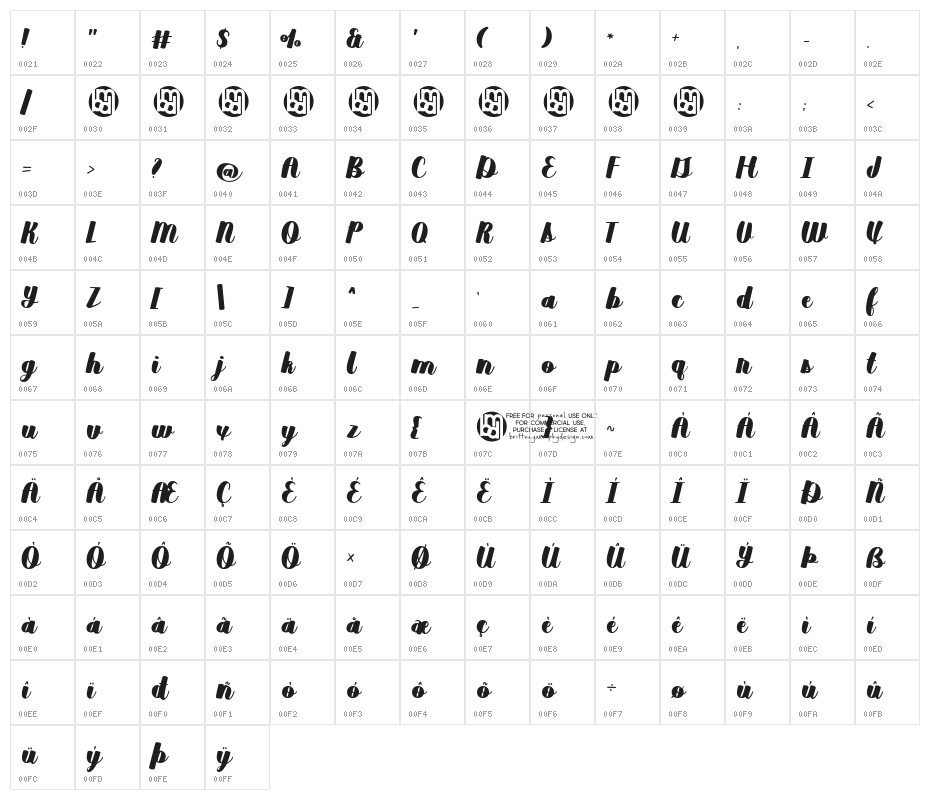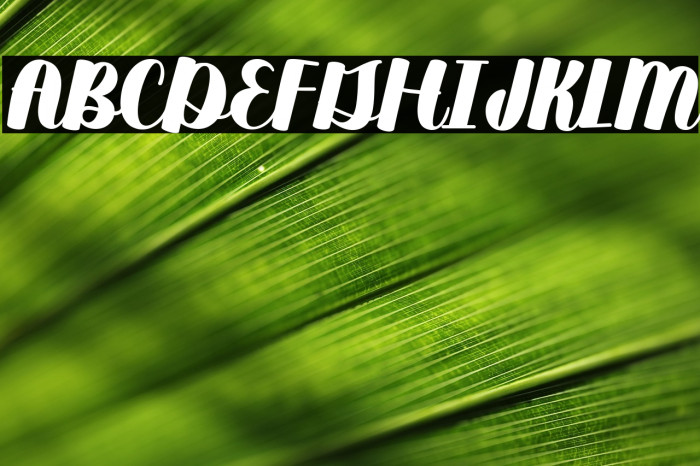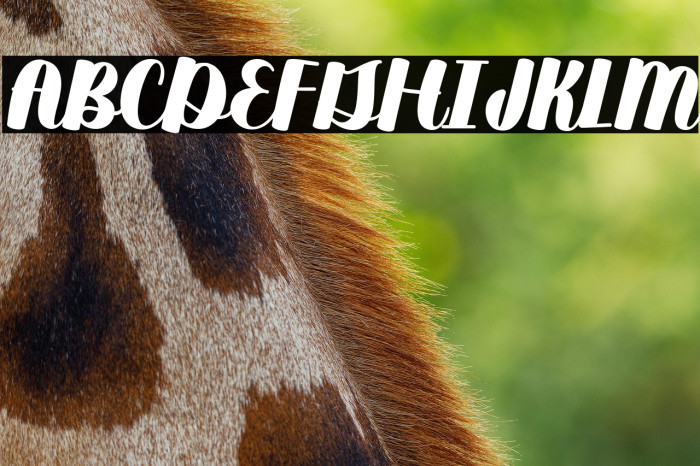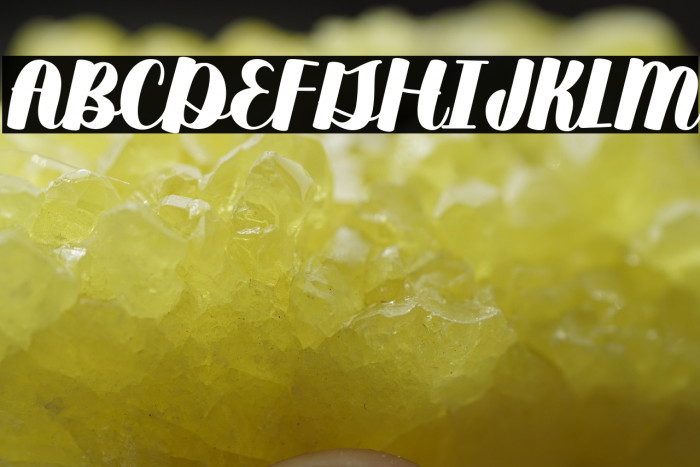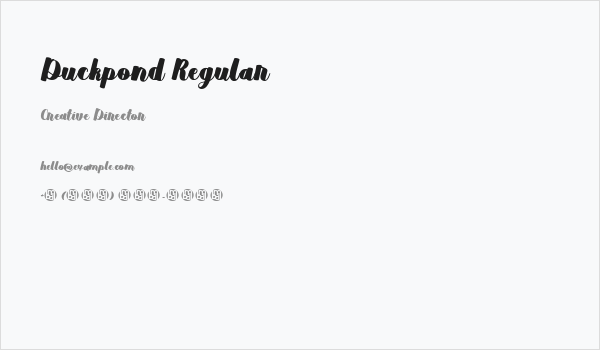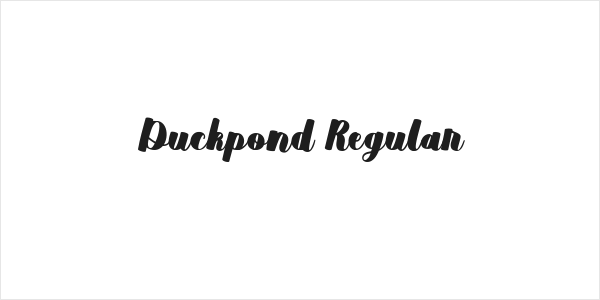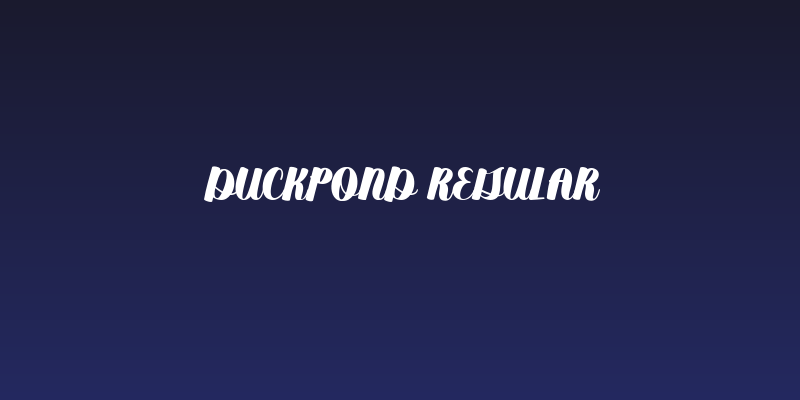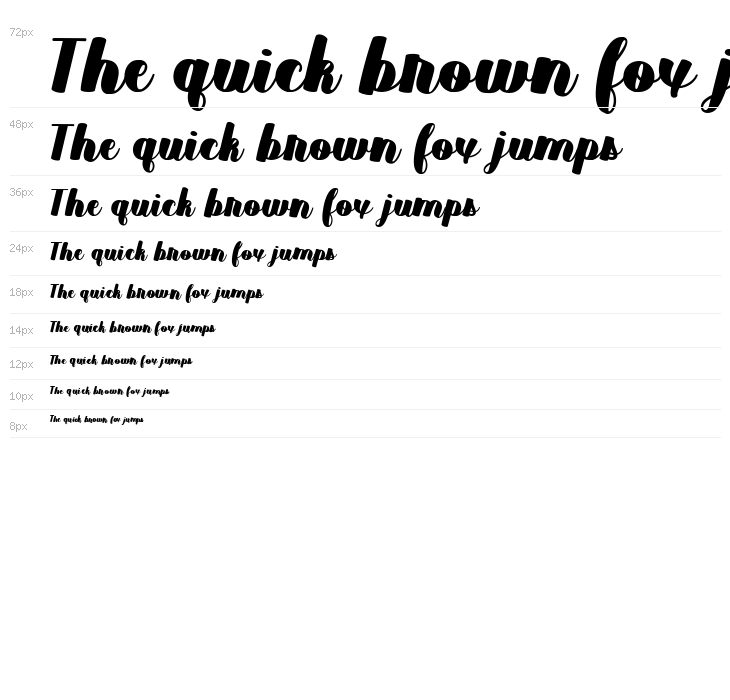
Duckpond Regular Font
Duckpond Regular Description
This font features a bold and flowing script style, characterized by its thick, sweeping strokes and elegant curves. The uppercase letters are particularly striking, with a dynamic and energetic feel that suggests movement and flair. The lowercase letters maintain this fluidity, offering a cohesive and harmonious look. The numbers and special characters are designed with the same attention to detail, ensuring consistency across all glyphs. This font is perfect for projects that require a touch of sophistication and style, such as invitations, branding, and editorial design.